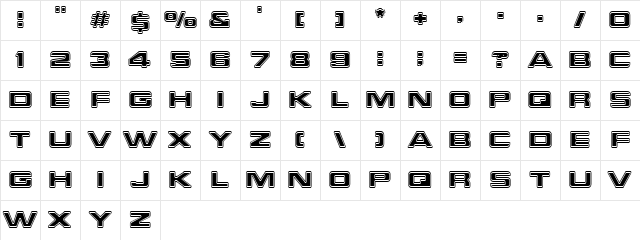
Starfleet Bold Extended
Style: Bold Extended
Complete Starfleet Bold Extended glyph index. Displaying only characters natively supported by Starfleet Bold Extended font.
Design Context for Starfleet
Starfleet is a composed and adaptable typeface that performs quietly and consistently across a wide range of design contexts. Its bold stroke weight gives it real presence on the page.